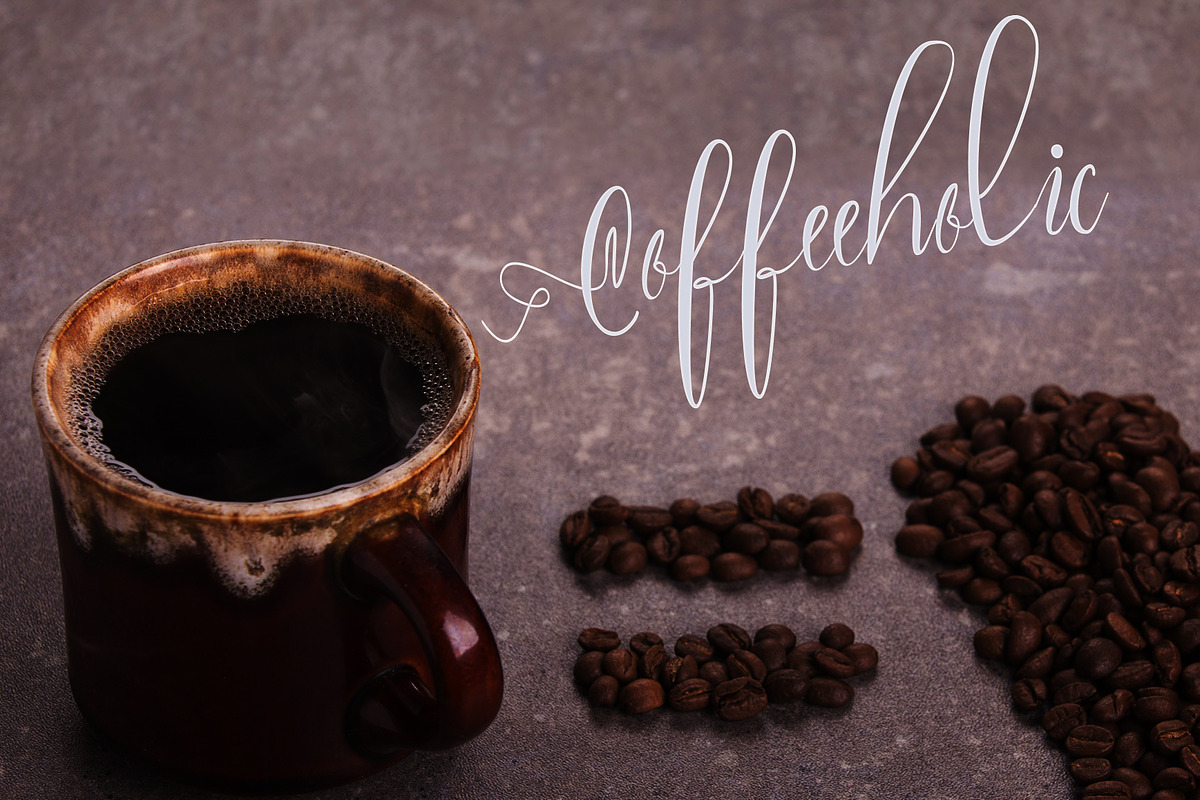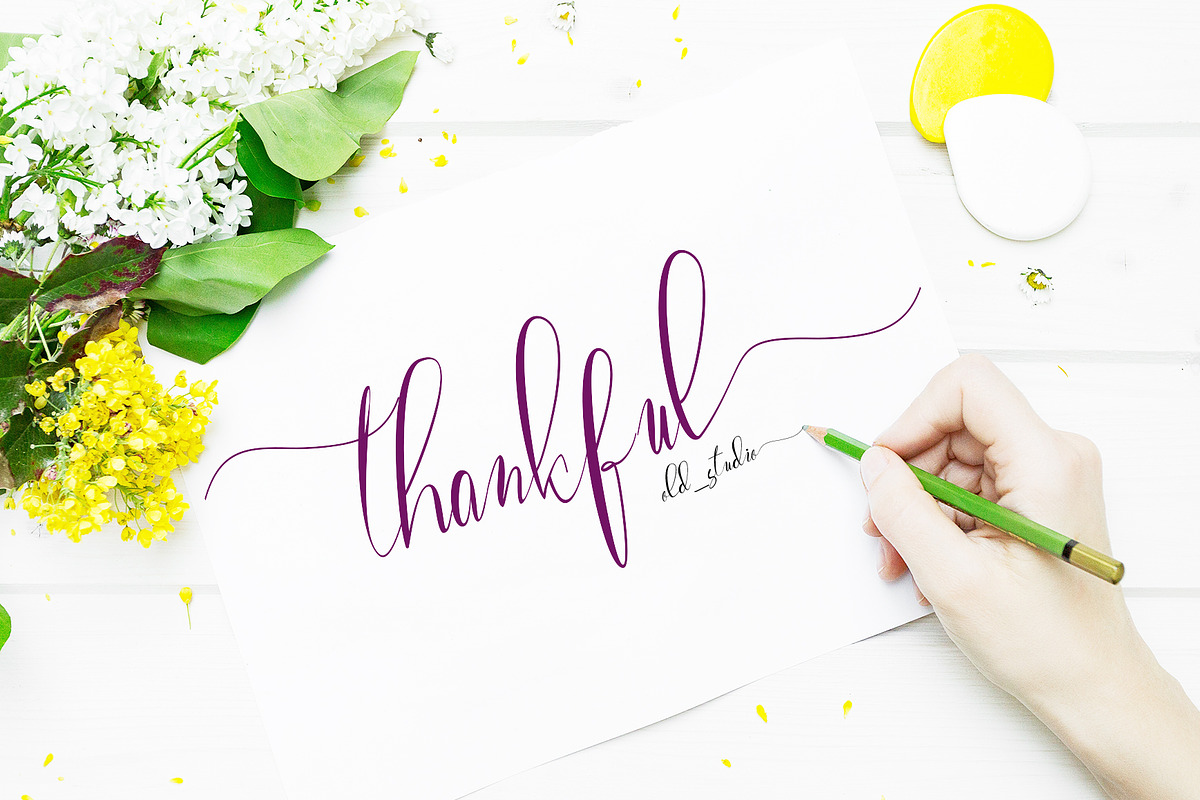
Paula Eva Script
Introducing Paula Eva Script
Paula Eva Script is a new modern calligraphy Typeface Fonts collection from old_ studio, combines from copperplate to contemporary typeface, classic, beauty and elegant touch.
Paula Eva Script is suitable for Apparel Brand, any greeting cards, Painting design style, or any design that needs natural and personal touch. Mix and match the alternate characters to add an attractive message to your design.
-Alternates
-Standart ligatures
-Stylistic Alternates
-Stylistic sets